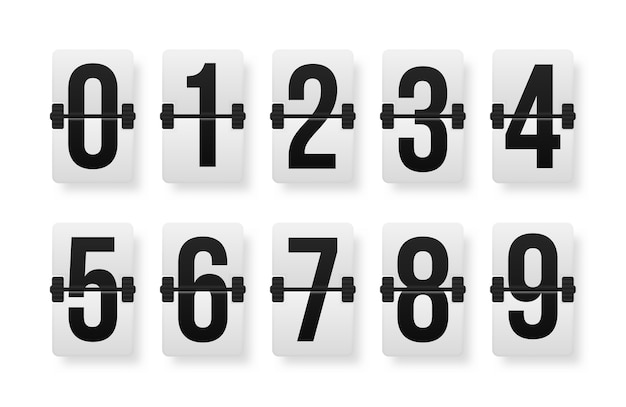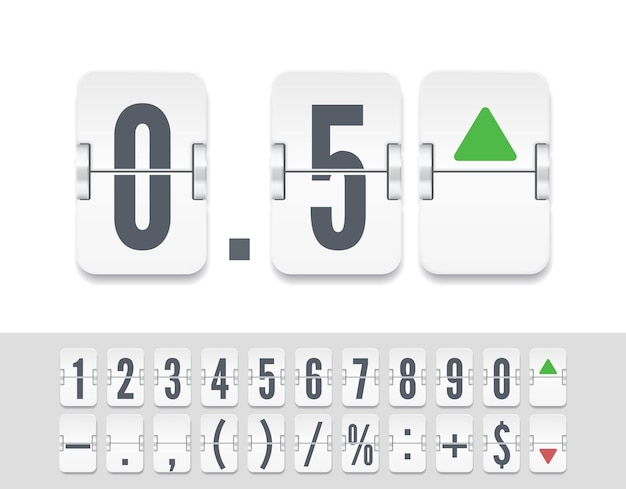
Vector illustration template Vector coming soon web page with floating flip time counter White scoreboard number font
Vector template for time counter or web page timer. White flip numbers and symbols on a mechanical scoreboard isolated on transparent background.